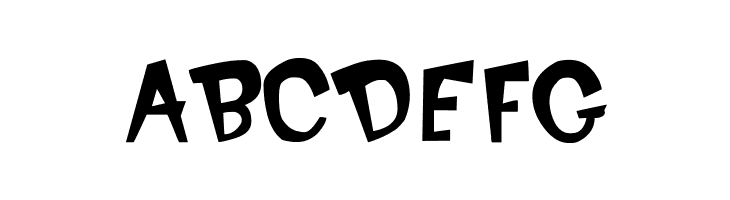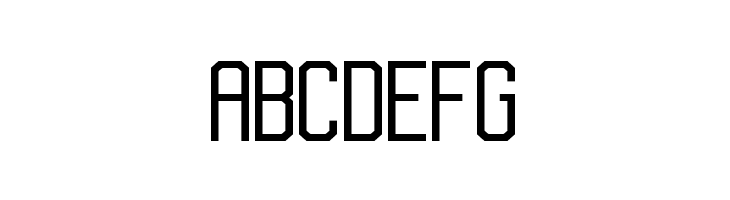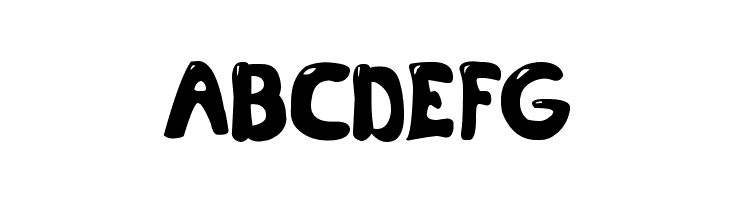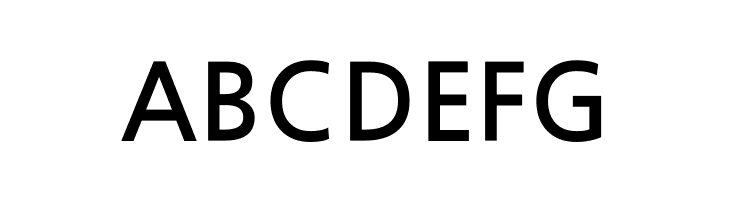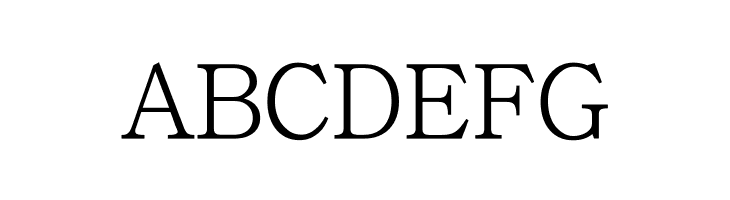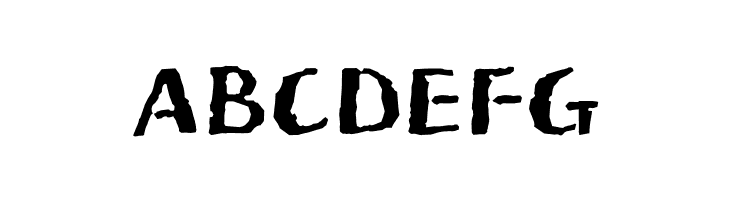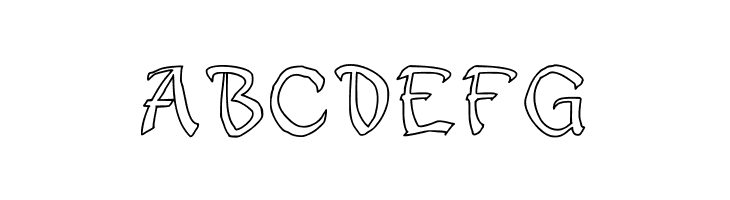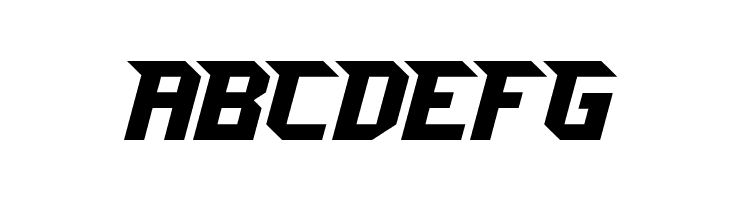
A modern, clean sans-serif font with uniform stroke width and excellent readability.
A bold, brush-style font with an artistic and hand-crafted appearance.
A classic serif font with medium contrast and elegant strokes.
A playful, bold font with a quirky, hand-drawn aesthetic.
A bold, angular font with a sporty, dynamic style.
A geometric, modern font with slim, elongated characters and uniform stroke width.
A playful, bold font with rounded, hand-drawn characters.